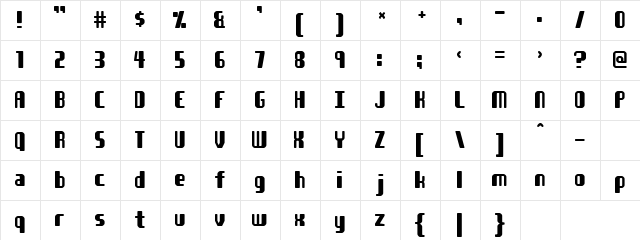
Farreaching Regular
Design Context for Farreaching Typeface
Farreaching takes a measured approach to typography — its balanced proportions and neutral character make it a reliable workhorse for both digital and print work.